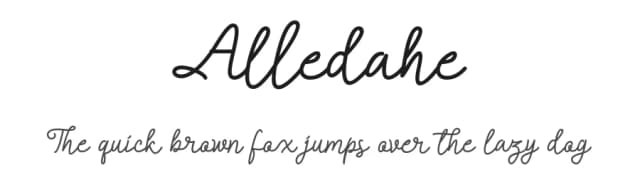
Alledahe by Rabas Design is a flowing romantic script that captures intimate emotion through graceful, expressive curves. The letterforms move across the page with natural fluidity, creating an authenticity that feels less like a typeface and more like a genuine handwritten gesture. What distinguishes this script is its ability to communicate personal warmth and refinement simultaneously, without tipping into either frivolity or heaviness. The proportions work across different scales, from intimate invitation text to display-level branding.
Wedding invitation suites benefit most directly from this script's sensibility, particularly when you're designing upscale or vintage-inspired celebrations where every detail carries meaning. The same handcrafted quality works beautifully on boutique product labels, artisan packaging, and personalized greeting cards that need to feel distinctive rather than templated. You could also apply it to engagement announcements, love-themed wall art, signature-style business card headers, or calligraphy-style quote designs for social media. Designers working with small luxury brands, event planners, and clients who genuinely value handcrafted aesthetics will find particular resonance in Alledahe's balance of polish and intimacy. When you're ready to incorporate this sensibility into your work, you'll find Alledahe waiting on Creative Fabrica.
- Elegant, Flowing, Romantic Font
Alledahe Font is a script font that shines as a display or heading face. Pair it with a clean sans-serif or serif font for body text β the contrast creates a clear hierarchy while the two styles stay balanced and easy to read.
Alledahe Font